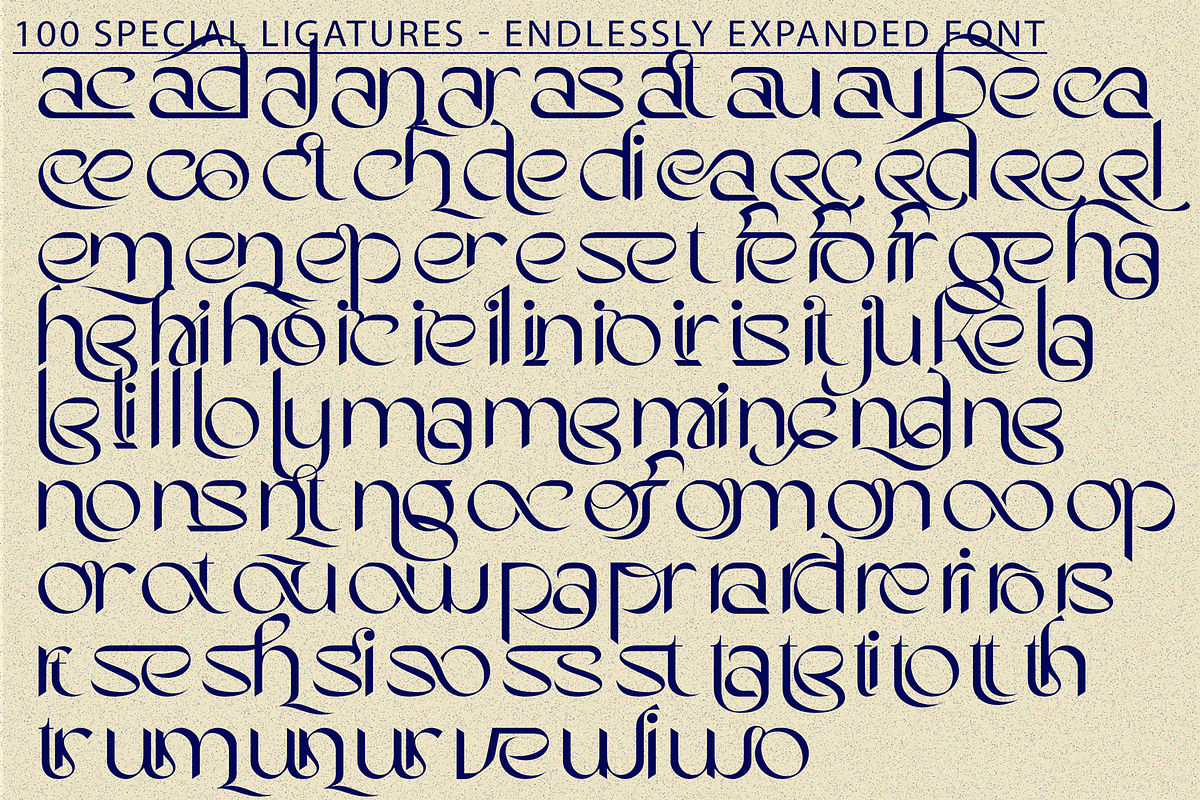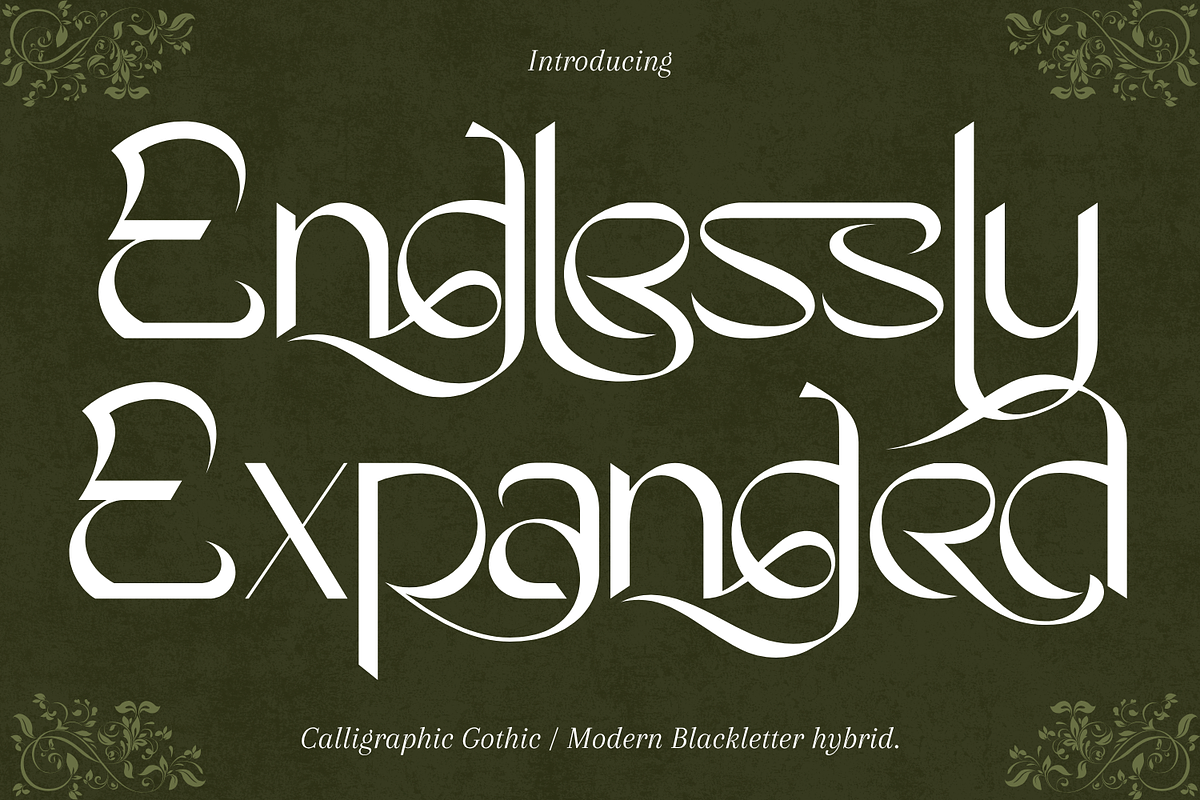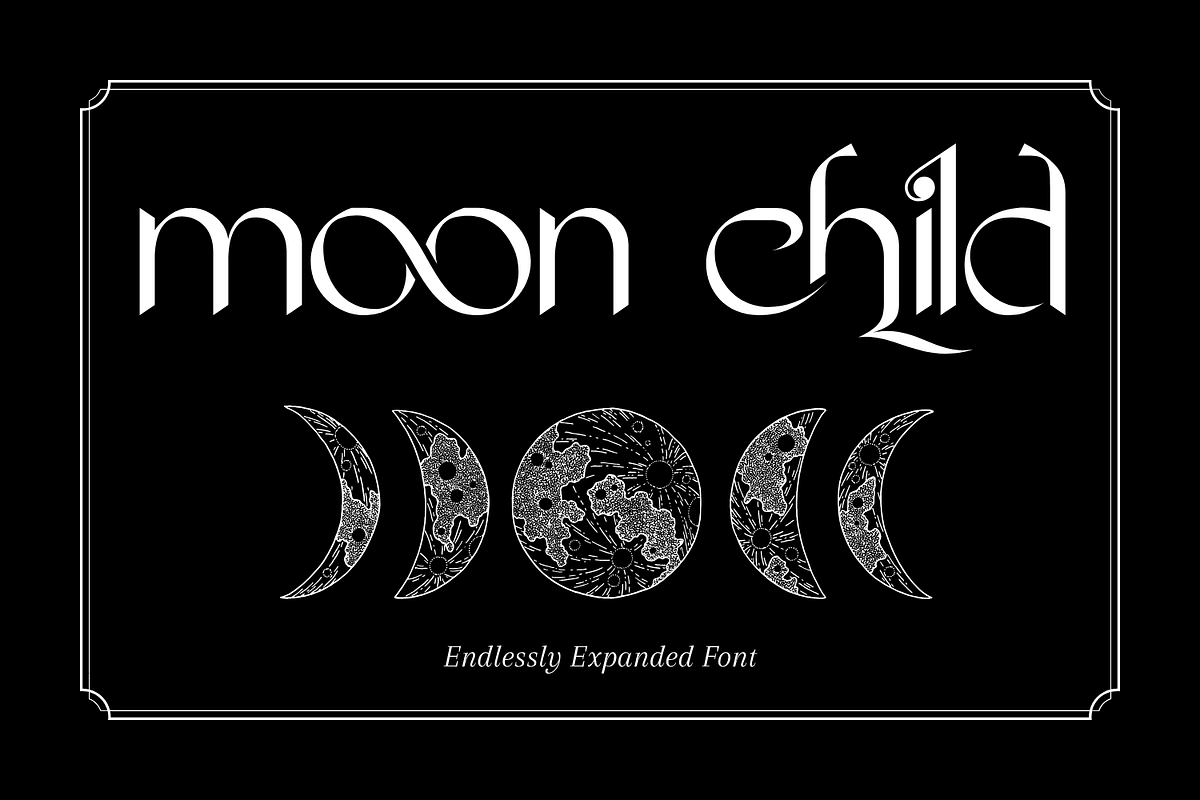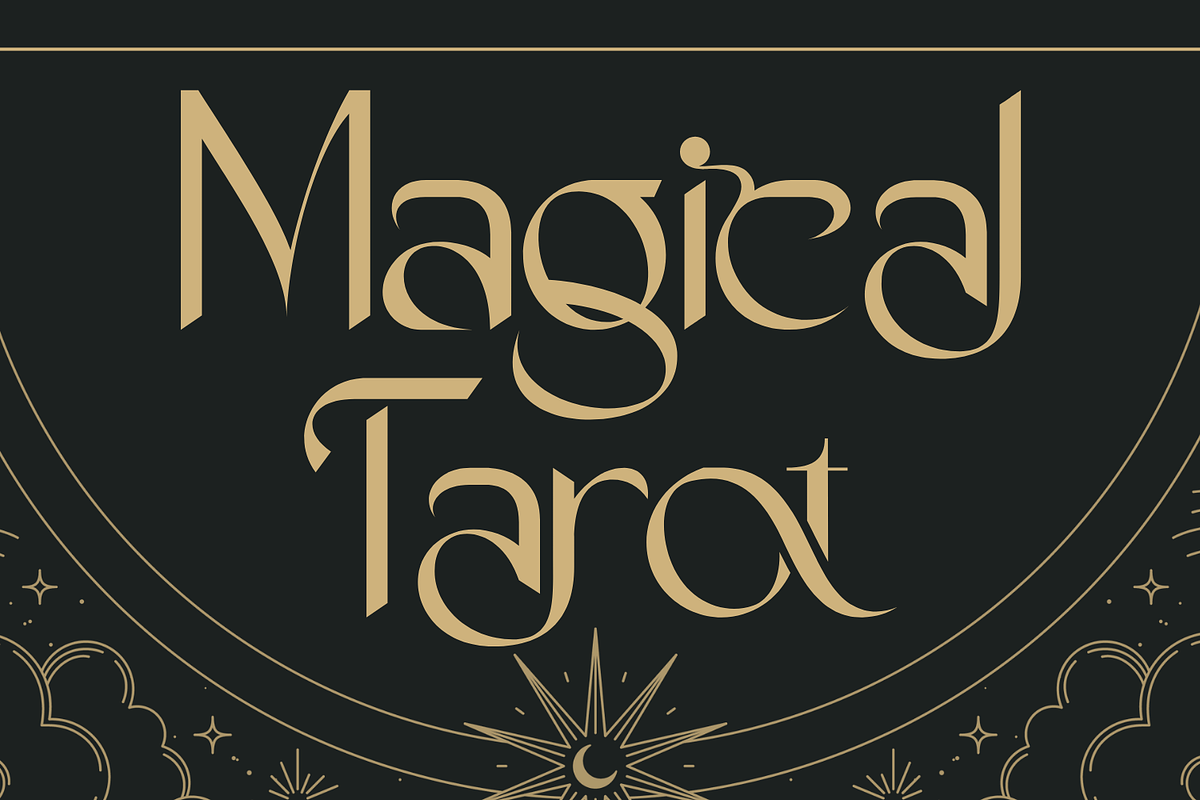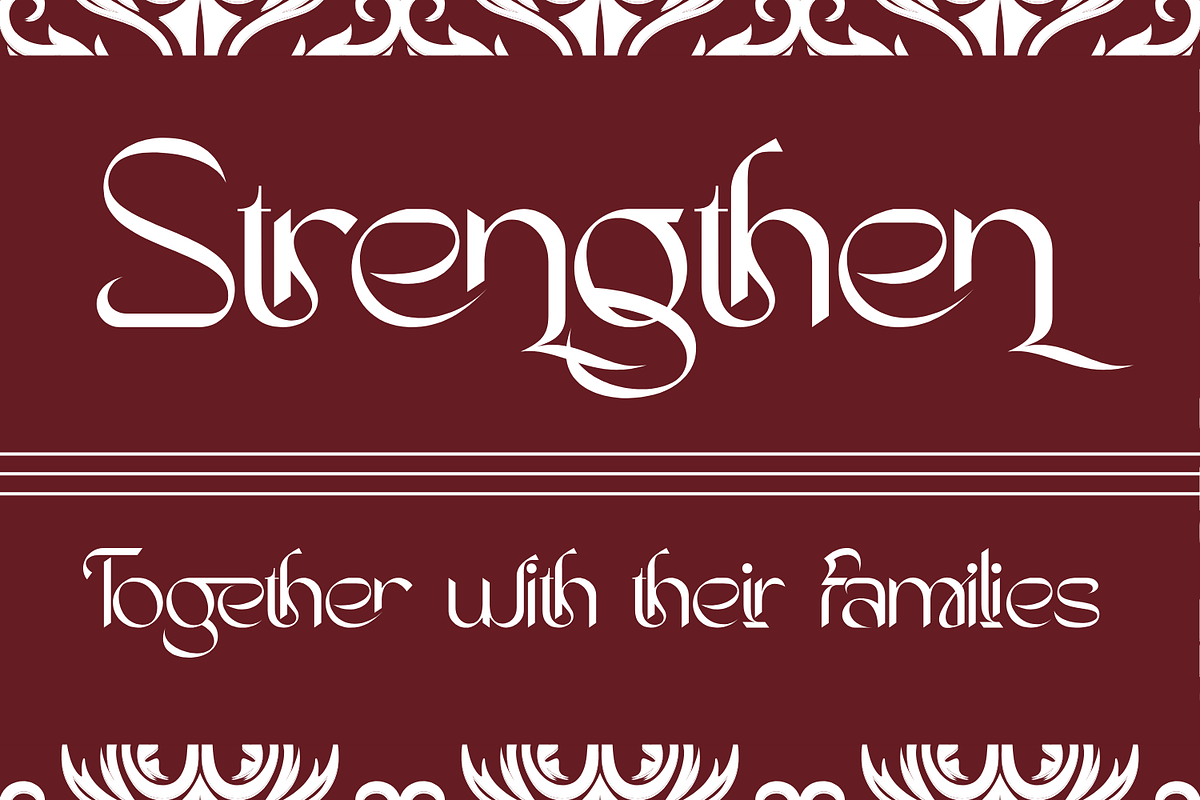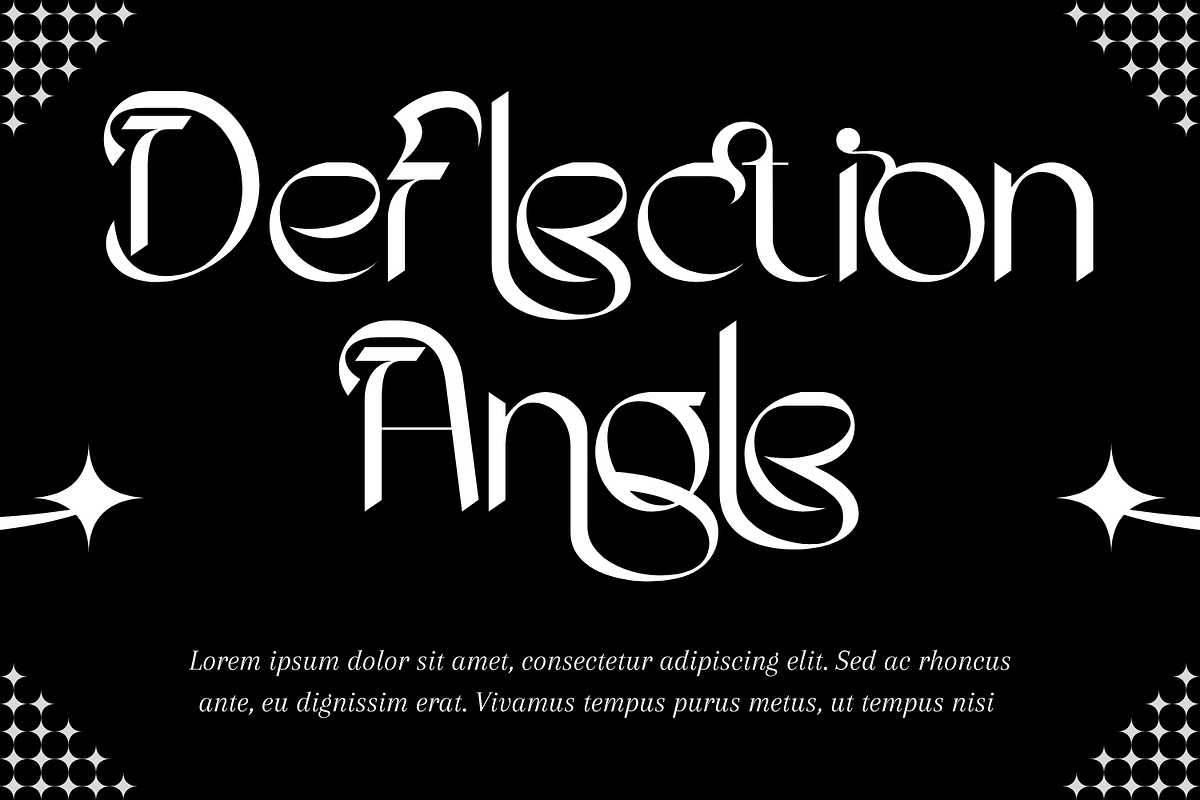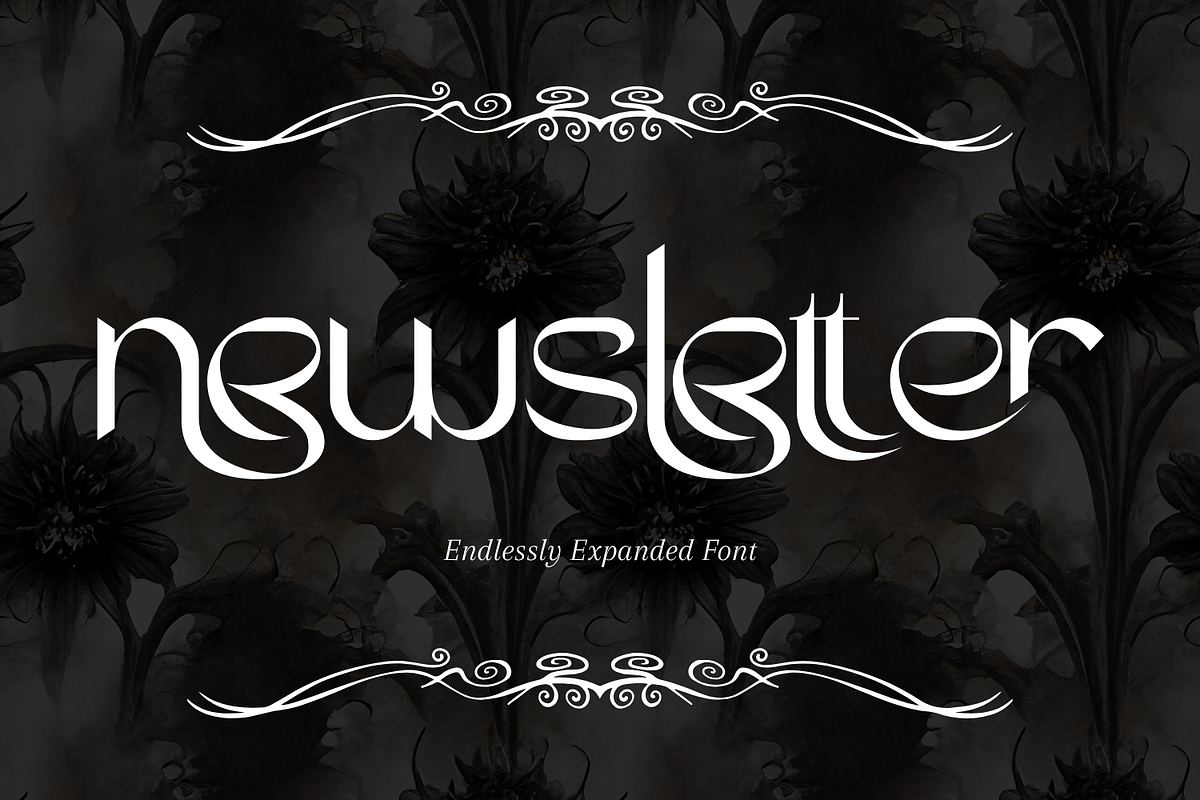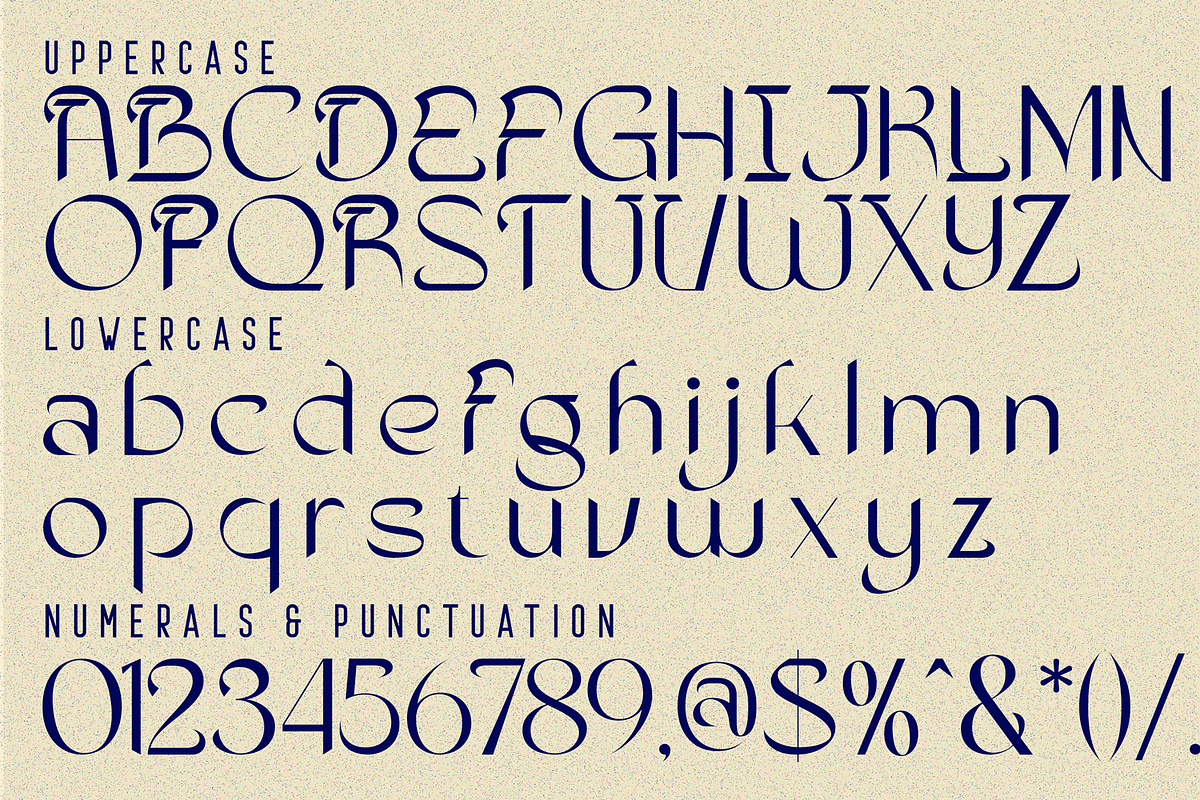
Endlessly Expanded - Ligature Sans
Endlessly Expanded - Ligature Sans Font – Elegant Ornamental Sans-Serif Display Font, an elegant ornamental Sans serif display font crafted with high-contrast strokes, elongated letterforms, and beautifully flowing curves. Each character features sculpted terminals and graceful swashes, blending refined serif structure with expressive decorative flourishes. The font carries a luxurious, artistic rhythm—perfect for typography that needs to feel both sophisticated and imaginative. Ideal for branding, book covers, fashion editorials, posters, packaging, invitations, and any creative project that demands a striking blend of elegance and artistry, Endlessly Expanded offers a timeless statement in every composition.
- Uppercase & Lowercase Letters
- Around 100 Special Ligatures & Stylistic Alternates
- Accented Characters for multilingual support
About 100 ligatures combined with Stylistic Alternates Font:
ac ad al an ar as at au av be ca ce ch co ct de di ea ec ed ee el em en ep er es et fe fo fr ge ha he hi ho ie ic il in io ir is it ju ke la le li ll lo ly ma me mi nc nd ne ng no nt ns oc of om on oo op or ot ou ow pa pr ra rd re ri ro rs rt se sh si so ss st ta te th ti to tr tt um un ur ve wi wo